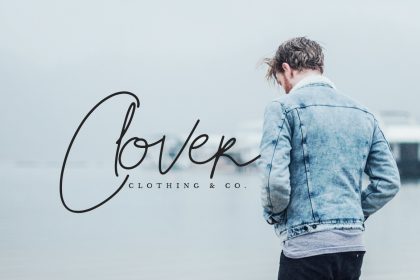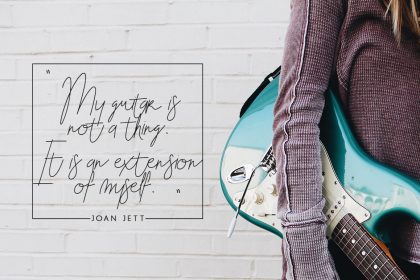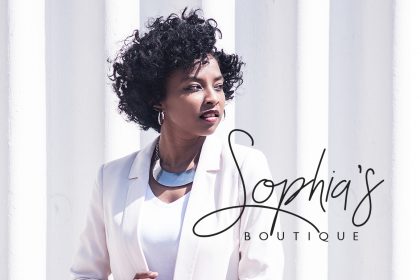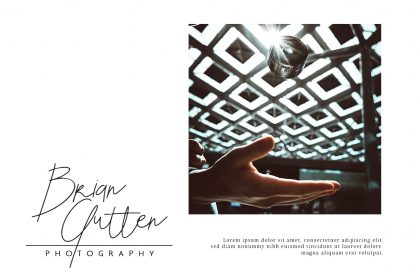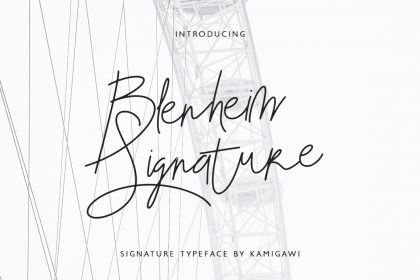
Blenheim Signature Demo Font
Blenheim Signature Demo
Blenheim Signature is a classy handwriting font that give you a personal signature style with just a few click!
This font suitable for your modern or classic design : Signature, Logo, Branding, Invitation, Blog Headline,
Quotes and many more.